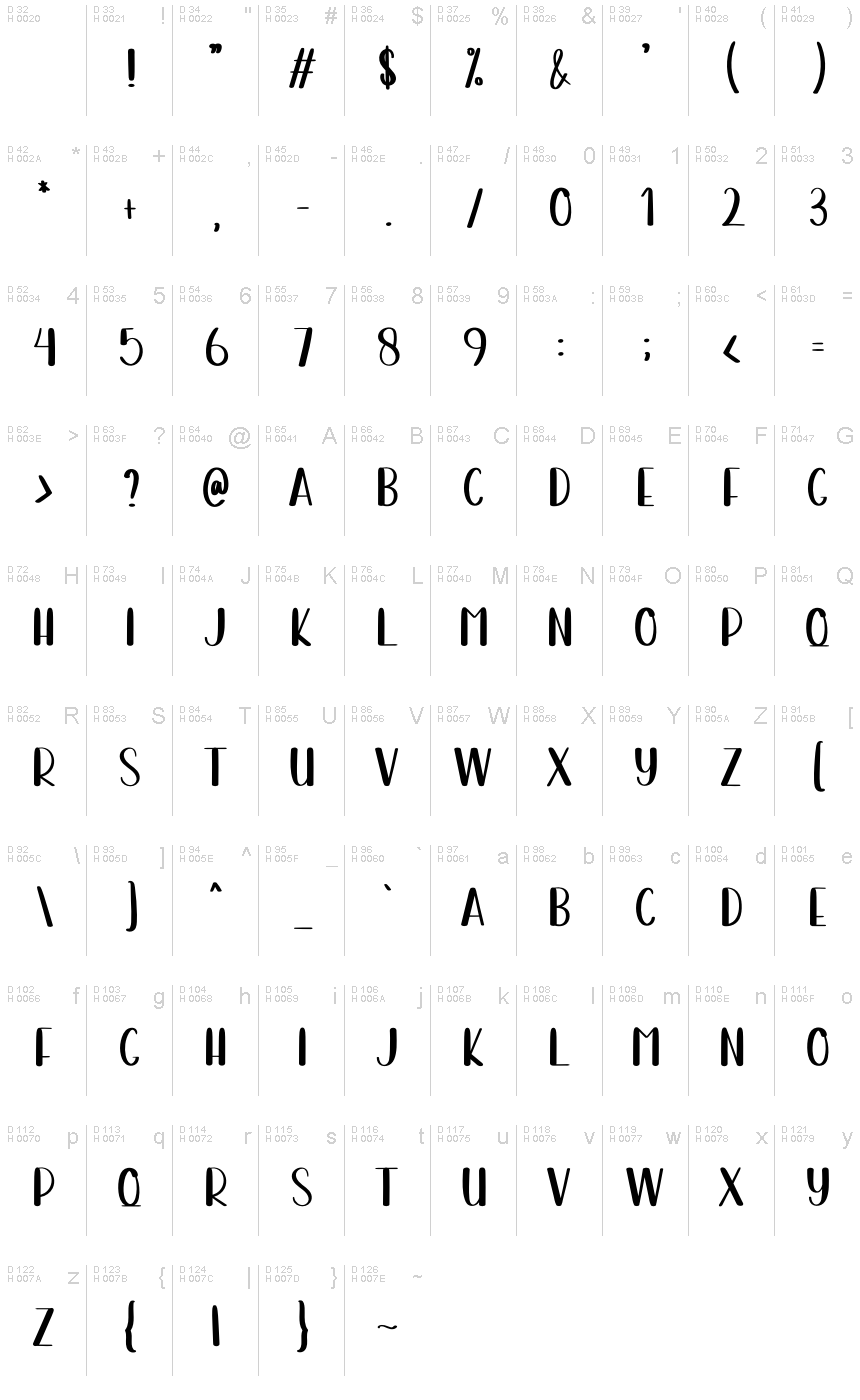
Creative School
Creative School is a charming, handwritten display font designed by Andi Moz. With its whimsical brushstrokes and playful personality, this condensed font exudes a sweet, friendly aesthetic that instantly captivates the viewer. The organic flow of the letterforms and the slight inconsistencies in the strokes lend a genuine, homemade quality, infusing designs with a sense of warmth and personality.
Brimming with character and versatility, Creative School is an ideal choice for crafting invitations, stationery, greeting cards, and any other project that calls for a touch of playfulness and approachability. Its condensed width ensures the font remains legible even in confined spaces, making it a practical selection for a wide range of design applications.